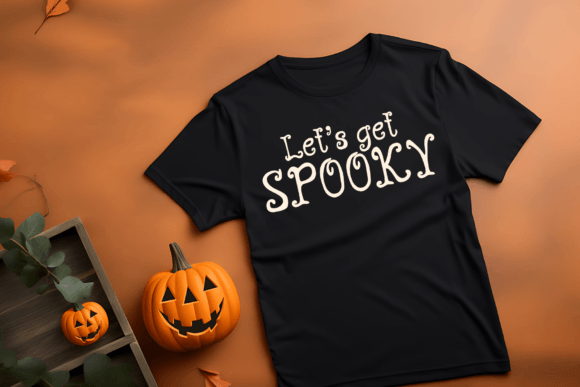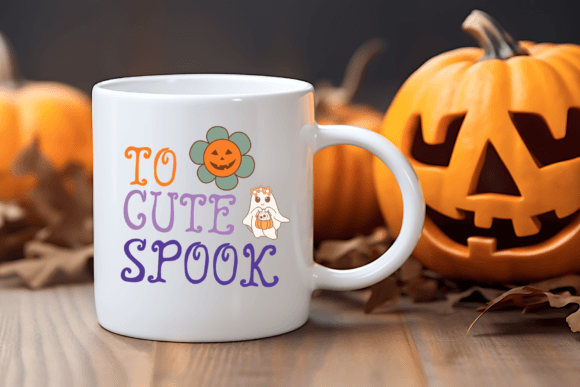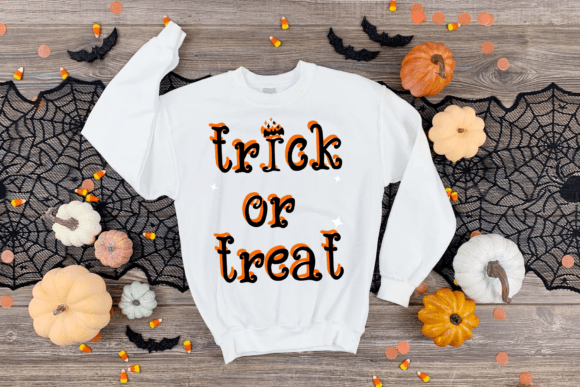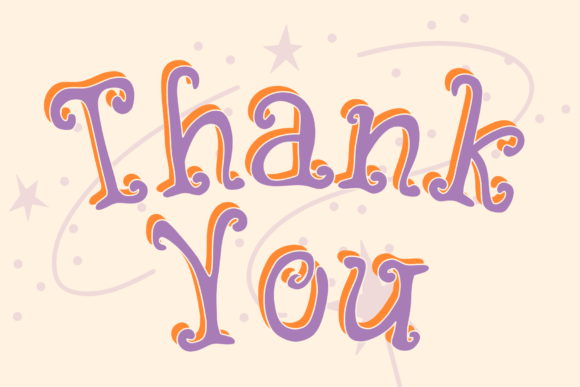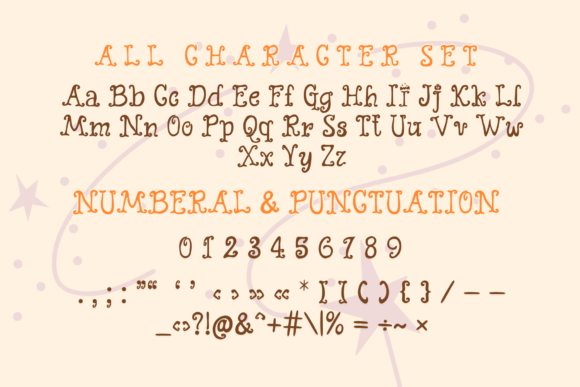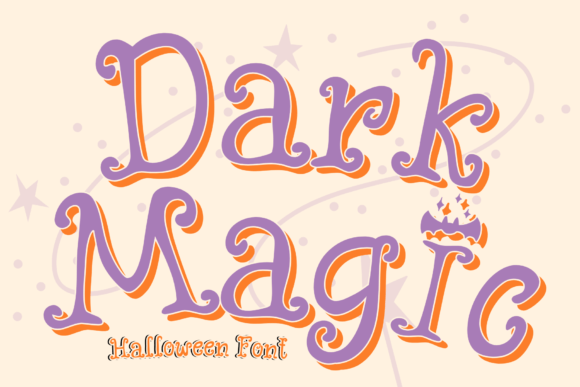
Unleash the Spookiness: Discover the Dark Magic Font for Your Halloween Projects
As the spookiest time of the year approaches, designers and crafters are on the lookout for the perfect font to add a touch of eeriness and playfulness to their Halloween-themed projects. Look no further than the Dark Magic Font, a decorative font designed to cast a spell of creativity on your designs. In this article, we’ll dive into the world of Dark Magic Font and explore its features, uses, and benefits for designers and crafters.
What is Dark Magic Font?
Dark Magic Font is a Halloween-themed decorative font that embodies the spirit of playfulness and authenticity. Its unique design makes it an ideal choice for creating spooky yet fun and engaging projects. Whether you’re working on blog posts, logos, branding, ads, invitations, greeting cards, planners, photo albums, decorations, or more, Dark Magic Font is the perfect addition to bring your designs to life.
Key Features of Dark Magic Font
- Playful and Authentic Design: Dark Magic Font boasts a distinctive design that captures the essence of Halloween. Its playful and authentic style makes it perfect for creating a wide range of projects, from spooky decorations to festive greeting cards.
- Versatility: This font is incredibly versatile and can be used for various design projects, including digital and print materials.
Uses of Dark Magic Font
Dark Magic Font is an incredibly versatile font that can be used for a wide range of projects, including:
- Blog Posts: Add a touch of Halloween spirit to your blog posts with Dark Magic Font. Use it for headings, titles, or even entire paragraphs to create a spooky atmosphere.
- Logos and Branding: Create a memorable logo or branding materials for your Halloween-themed business or event with Dark Magic Font.
- Ads and Invitations: Make your Halloween ads and invitations stand out with Dark Magic Font. Its playful design is sure to grab attention and entice recipients to join in on the fun.
- Greeting Cards and Planners: Add a personal touch to your Halloween greeting cards and planners with Dark Magic Font. Create unique and festive designs that will delight friends and family.
- Photo Albums and Decorations: Use Dark Magic Font to create spooky yet fun photo albums and decorations for your Halloween party or event.
Benefits of Using Dark Magic Font
So, why choose Dark Magic Font for your Halloween projects? Here are just a few benefits:
- Unique and Eye-Catching Designs: Dark Magic Font allows you to create unique and eye-catching designs that will set your projects apart from the rest.
- Time-Saving: With Dark Magic Font, you can quickly and easily add a Halloween touch to your projects, saving you time and effort.
- Fun and Creative: Dark Magic Font is the perfect way to add a touch of fun and creativity to your designs. Its playful design is sure to inspire your creativity and bring your projects to life.